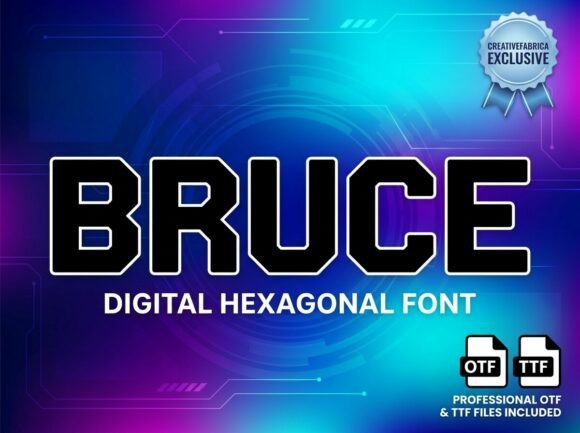
Bruce Font: Elevate Your Designs with a Stunning Decorative Display Font
Are you tired of using the same old fonts in your designs? Look no further than the Bruce Font, a stunning decorative display font that’s sure to turn heads. With its unique artistic elements and strong visual personality, this font is perfect for creators who want to break away from the ordinary and make a statement.
What Makes Bruce Font So Special?
Bruce Font is a versatile decorative display font that’s designed to be the center of attention. Its unique artistic elements and strong visual personality make it perfect for a variety of design projects, from bold headlines and artistic logos to creative packaging. Whether you’re a graphic designer, artist, or crafty DIY enthusiast, this font is sure to elevate your designs and give them a professional and polished finish.
Key Features of Bruce Font
- Unique Artistic Elements: Bruce Font features unique artistic elements that set it apart from other fonts. Each letter is carefully crafted to make a statement and add a touch of elegance to your designs.
- Strong Visual Personality: This font has a strong visual personality that’s sure to grab attention. Whether you’re using it for a headline, logo, or packaging, Bruce Font is sure to make an impact.
- Versatile: Bruce Font is versatile enough for a variety of design projects, from bold headlines and artistic logos to creative packaging.
- Professional and Polished Finish: This font maintains a professional and polished finish, making it perfect for designers and crafters who want to create high-quality designs.
Why Choose Bruce Font?
There are many reasons why you should choose Bruce Font for your design projects. Here are just a few:
- Stand Out from the Crowd: With Bruce Font, you can create designs that stand out from the crowd and grab attention.
- Perfect for Creative Projects: This font is perfect for creative projects, such as artistic logos, bold headlines, and creative packaging.
- High-Quality Design: This font is designed to high-quality standards, ensuring that your designs look professional and polished.
- Graphic Design: Use Bruce Font to create stunning graphic designs, such as posters, flyers, and brochures.
- Logo Design: Create artistic logos that make a statement and grab attention.
- Packaging Design: Use Bruce Font to create eye-catching packaging designs that stand out on store shelves.
In conclusion, Bruce Font is a stunning decorative display font that’s perfect for creators who want to break away from the ordinary and make a statement. With its unique artistic elements and strong visual personality, this font is sure to elevate your designs and give them a professional and polished finish. Whether you’re a graphic designer, artist, or crafty DIY enthusiast, Bruce Font is a great choice for any design project.